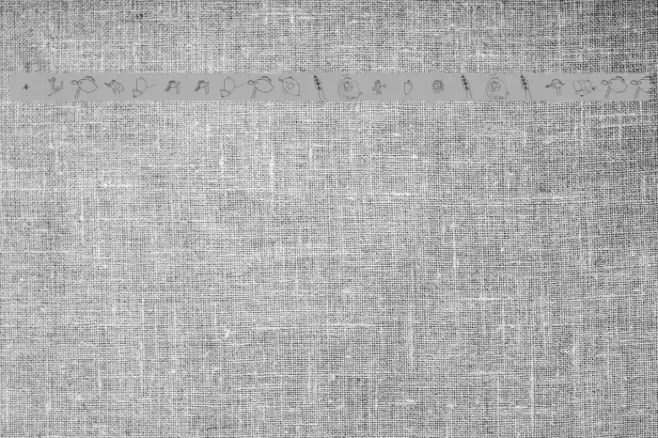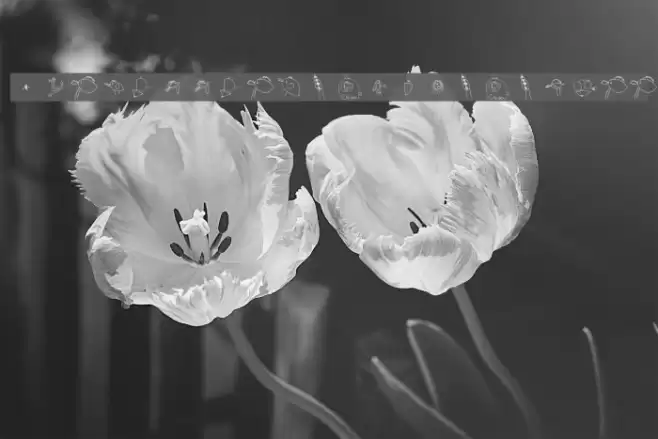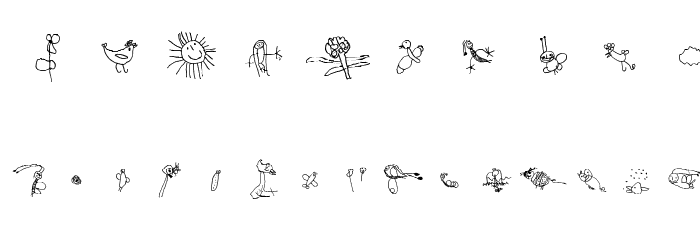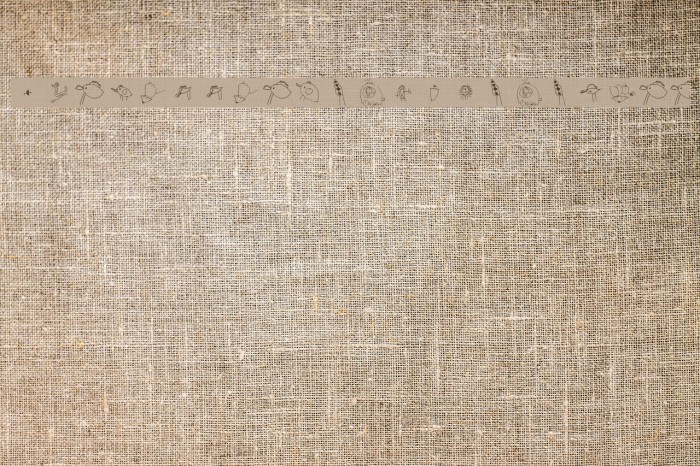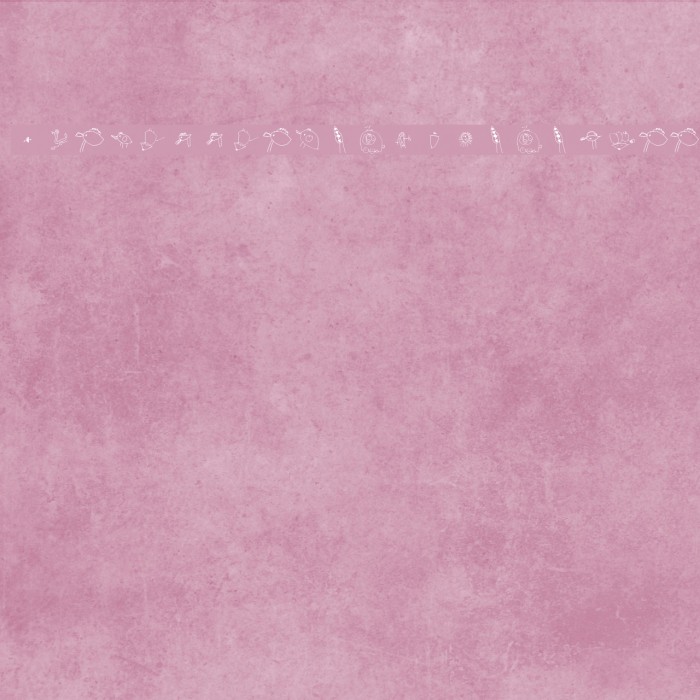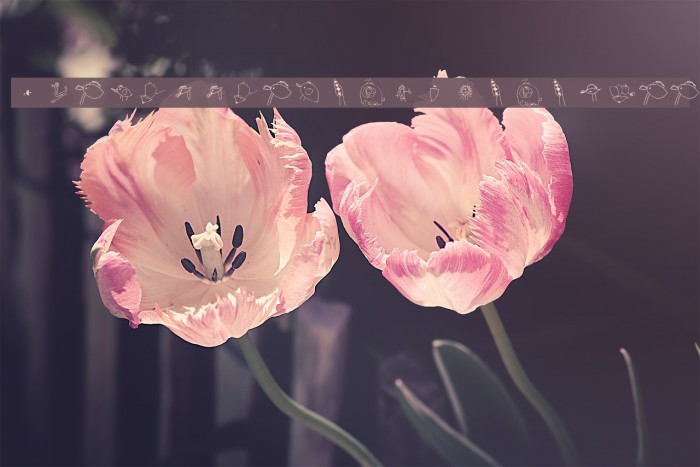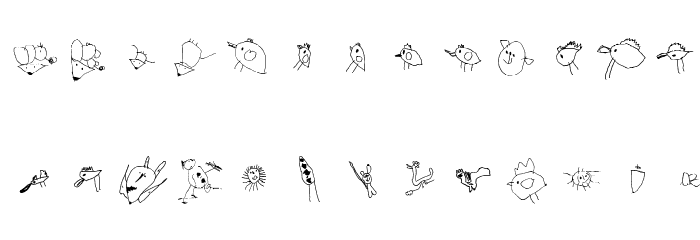
Julidoodles_3yrs_small Font
Julidoodles_3yrs_small Description
This is not a traditional font but a collection of whimsical, childlike doodles resembling early childhood drawings, each character represented by a unique sketch rather than a standard letterform.
A playful set of hand-drawn doodles mimicking a child's artwork from Uncategorized fonts.
- Proposed Projects: Children's books, playful branding, educational materials, greeting cards, art projects.
- Weight: Light
- Character Spacing: Wide
- Overall Style: Whimsical, Childlike, Playful
- Use Case: Decorative headings, playful illustrations, creative projects